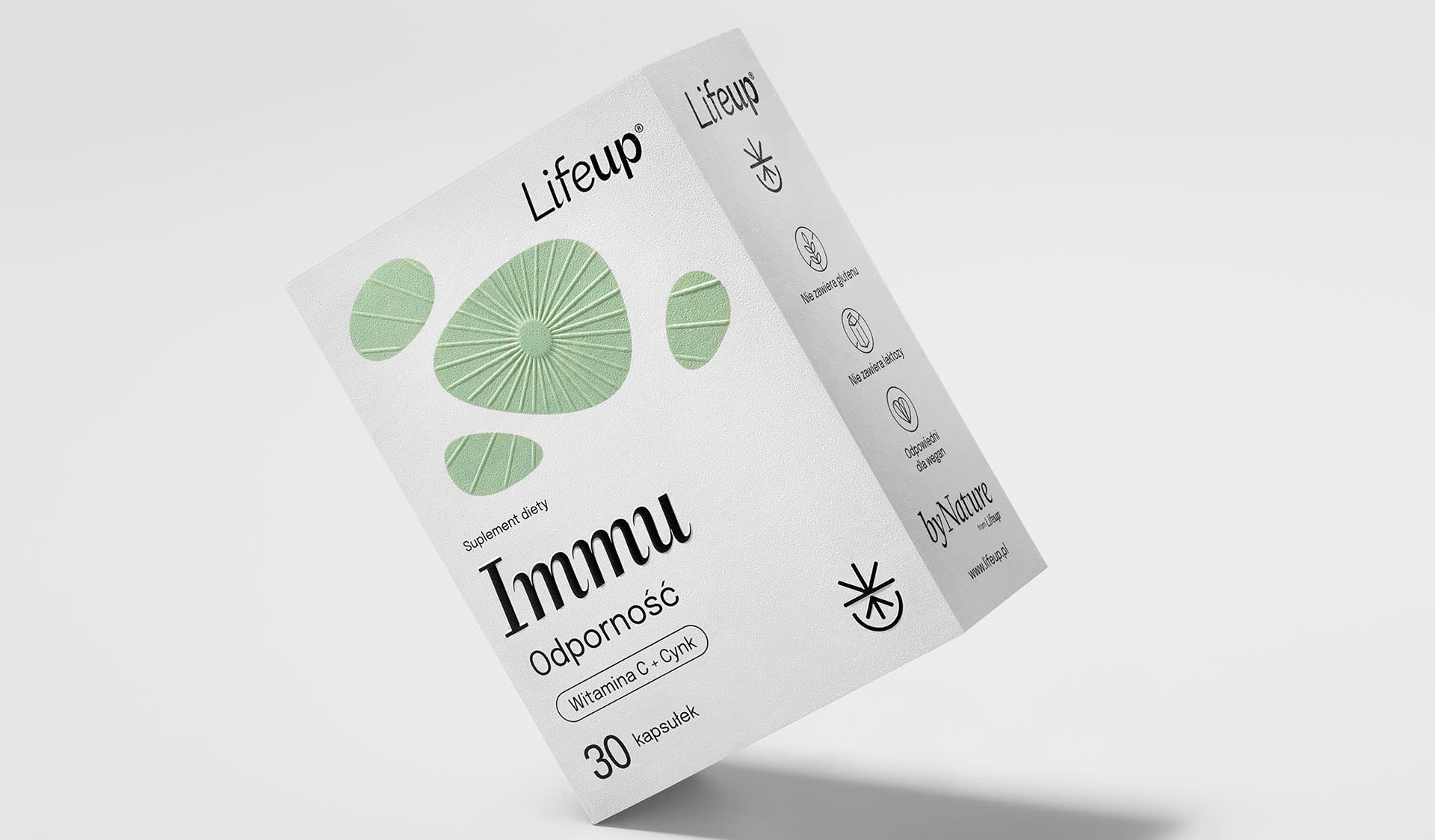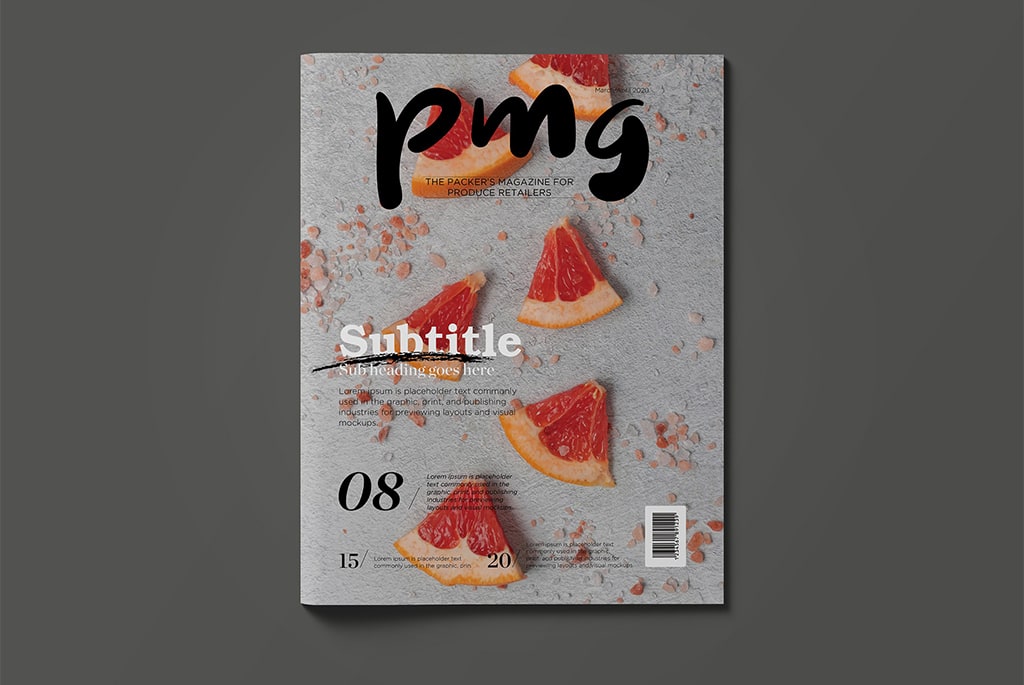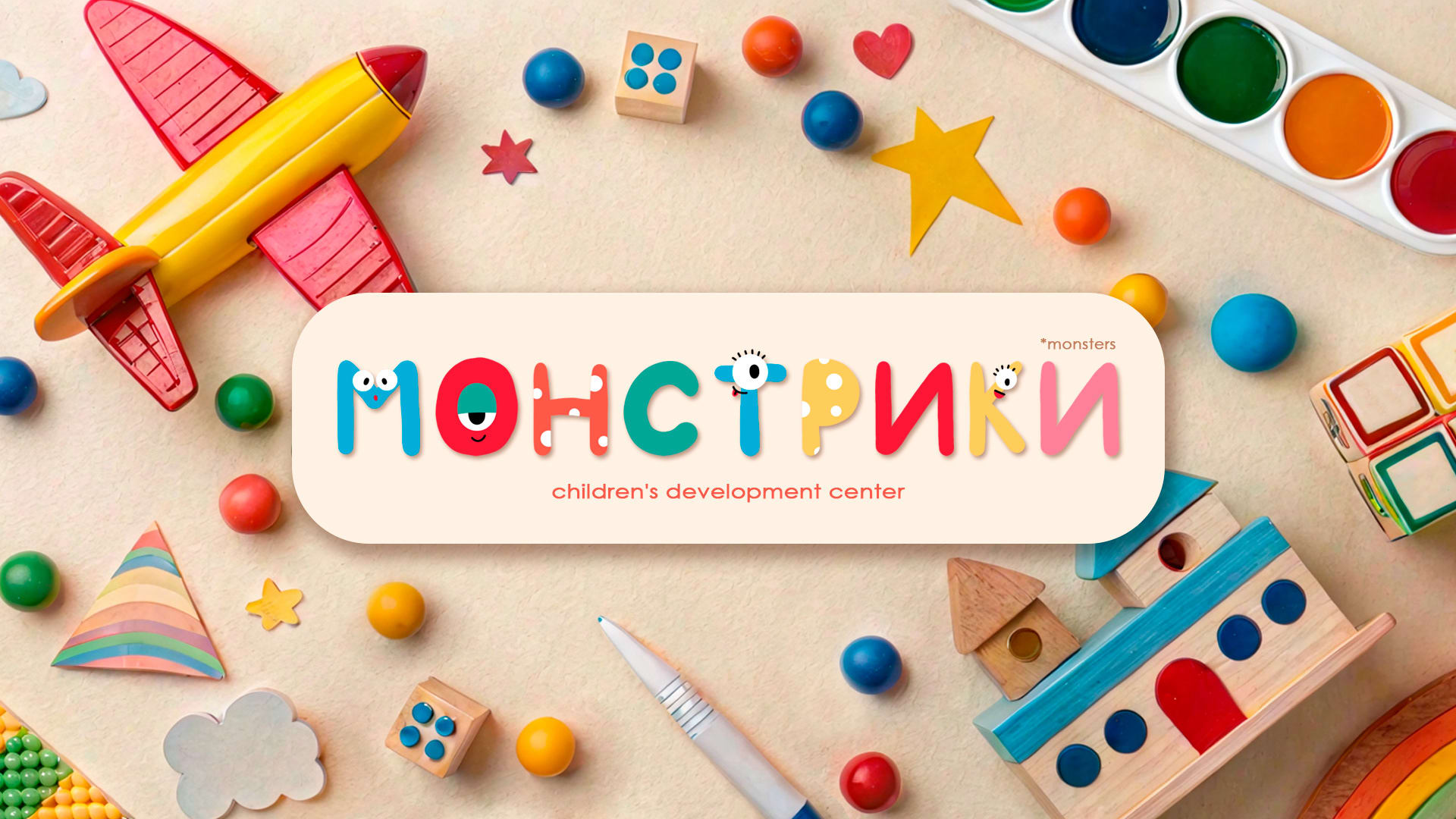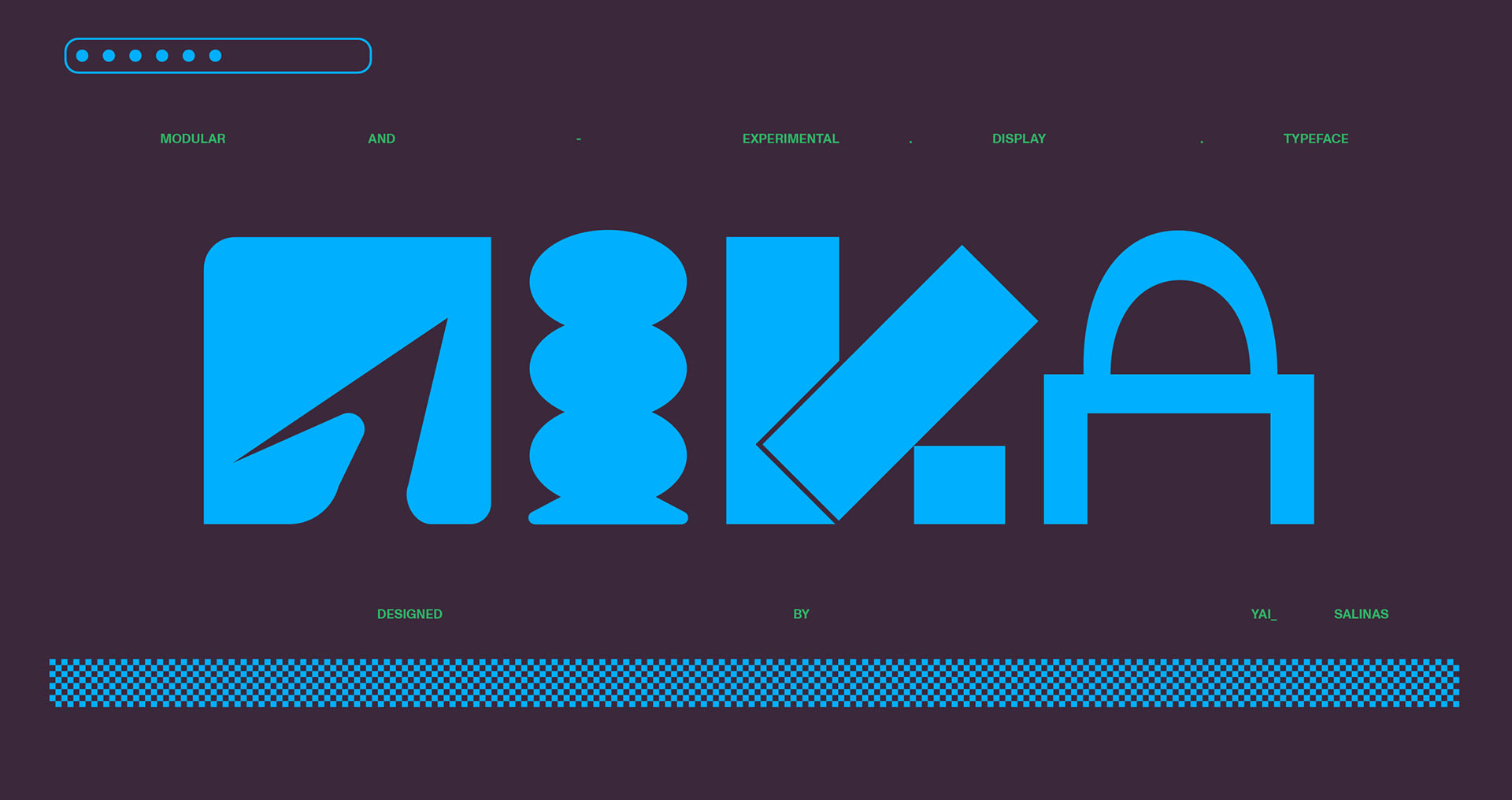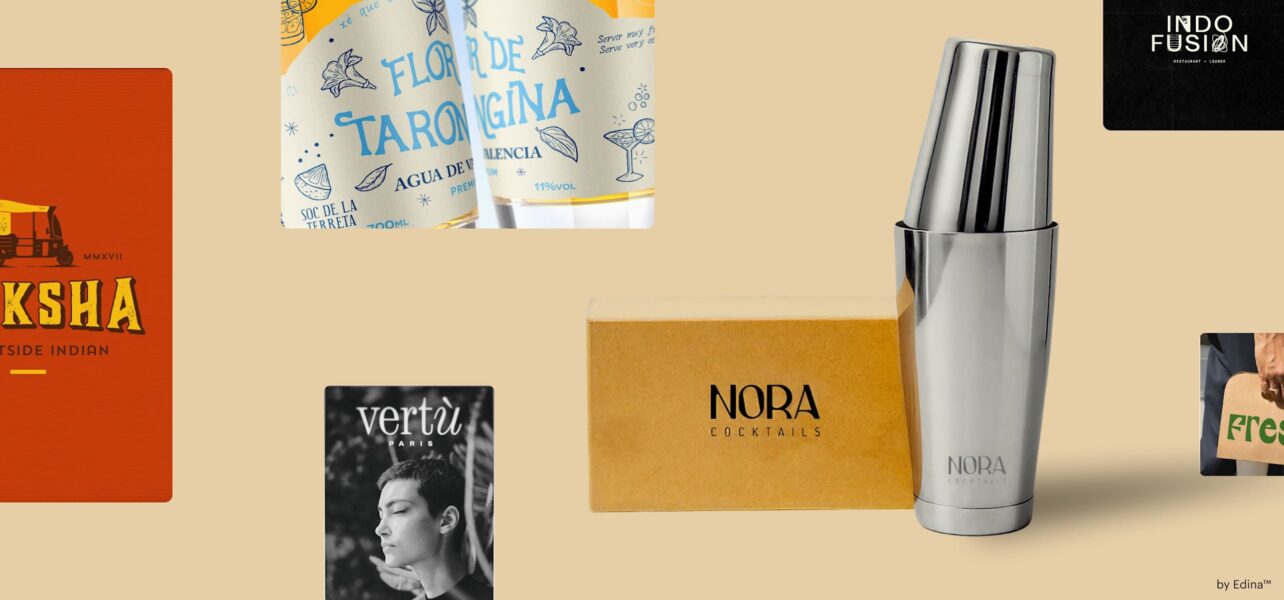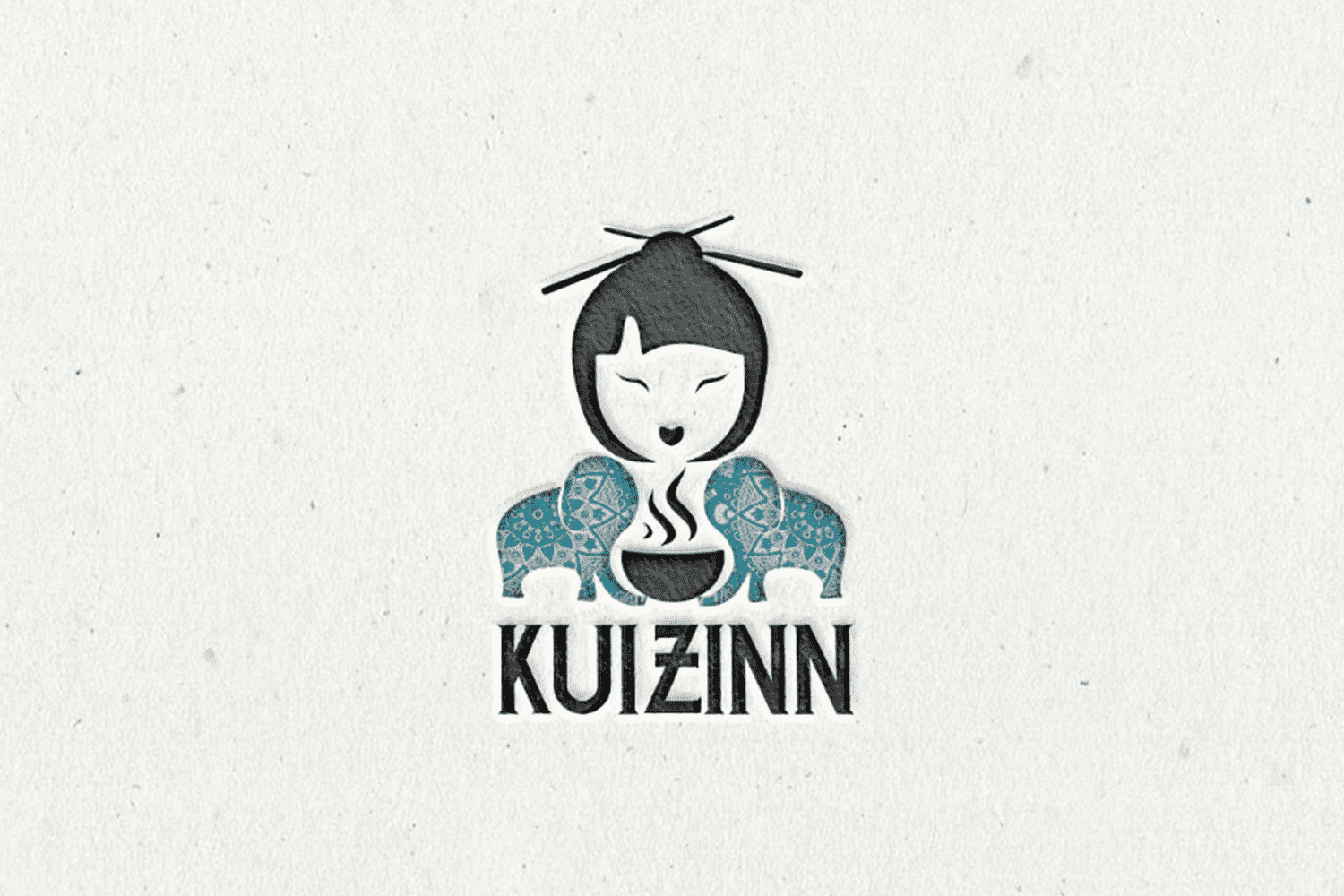
If you’re a small business owner, your time is precious, but you need customers to notice you. Consider this guide a time-saving shortcut. After speaking with our global community of freelance designers at 99designs by Vista, as well as our in-house design experts, our Trends 2026 research points to one big theme: People are craving personality they can trust. Font trends of 2026 tap into that feeling with typography that’s clearer, warmer and more human, without losing the simplicity busy brands need. Below, you’ll find eight trending font directions, each with easy steps to try on your logo, website, packaging or signage today.
1. Smooth It Over
Say goodbye to sharp edges. Smooth It Over softens existing letterforms by easing corners, smoothing terminals (the ends of strokes) and rounding angles, to make familiar fonts feel friendlier and easier to read. Think of it as turning the volume down on corporate and up on welcoming vibes, while keeping your current brand structure intact. The result reads modern, warm and a little playful, which works well for neighborhood cafés, kids’ brands, pet care, fitness studios and any service that relies on approachability and trust. It’s also an easy refresh: keep your current type (or a close cousin) and simply round edges or choose a softer cut, so it stays recognizably you with a warmer, more human feel.
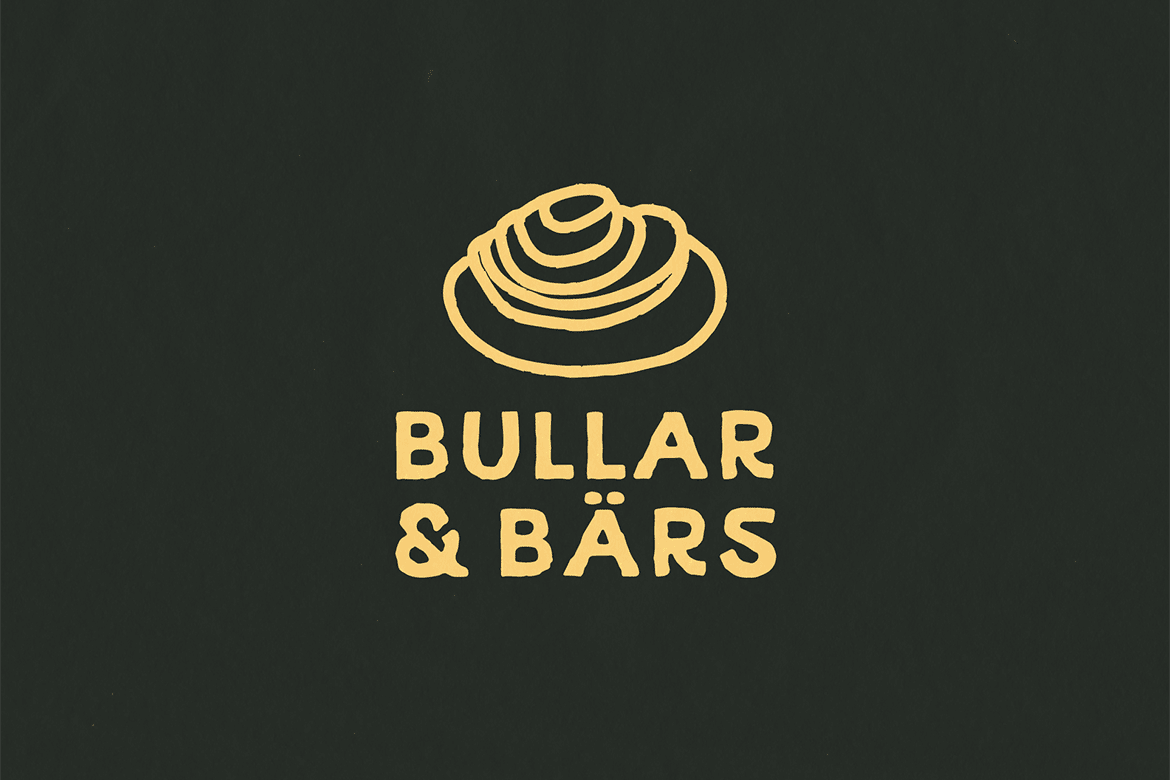
Source: font design by EWMDesigns via 99designs by Vista
“The softness of the characters makes this type trend feel unintimidating and inclsuive. The organic forms and rounded shapes would be perfectly suited to brands that want to be precieved to be as playful and inviting.”— Mary Pho, Art Director, VistaPrint
How to achieve: Keep your primary font if you like it, then swap in a rounded cut (for example, a rounded version of your sans serif) for headlines, menus or window decals. If your font doesn’t have a rounded sibling, gently round corners in a wordmark update or choose a rounded sans like Nunito or Rubik for display lines while keeping a clear body font like Inter. Maintain strong contrast and round headlines with crisp body copy to stay readable and professional.
2. Lingua-Lettering
Lingua-Lettering blends multiple writing systems, like Latin with Arabic, Japanese, Cyrillic, Devanagari and more in the same identity system. Sometimes scripts sit side by side; other times, designers echo shapes across scripts to create a shared rhythm. For global e-commerce, cultural institutions and food brands with international roots or tourism, this signals inclusivity and real-world reach.
“Bring language and culture into your design with Lingua-lettering. Why limit yourself to just one language when you can tell a richer story by weaving in others? Every language carries its own unique shapes, rhythms, and movements. Visual elements that can elevate your message and make it unforgettable. Design knows no borders, so neither should your creativity.”— Justin Hamra, Creative Director, VistaPrint
How to achieve: If you serve multilingual audiences, add a secondary script version of your wordmark or headline style for key touchpoints (storefront, packaging, website banners). Choose type families with broad language support so spacing and tone match across scripts. Work with a native speaker or cultural consultant to get the nuance right, and use clear hierarchy: one primary headline language, the second script as a supporting line or tagline. It’s bold and inclusive.
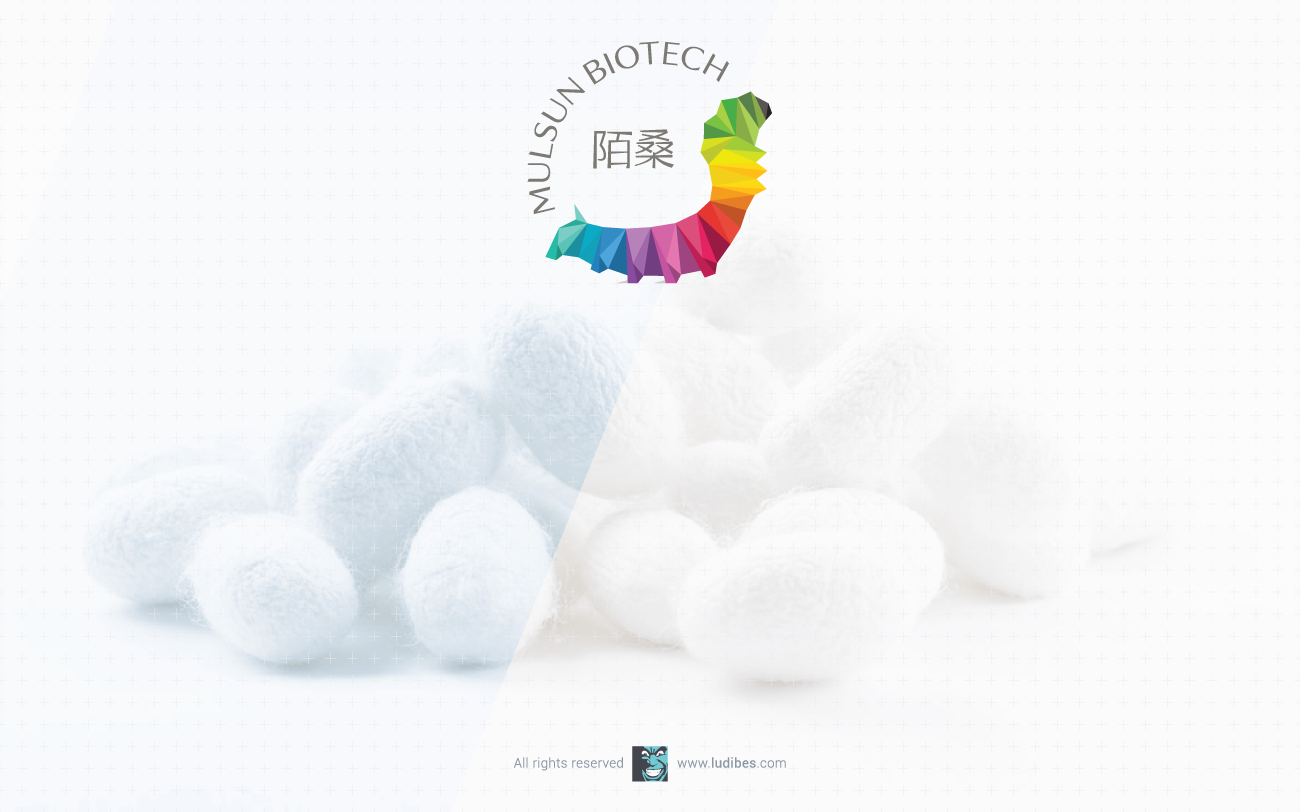
Source: Font design by ludibes via 99designs by Vista
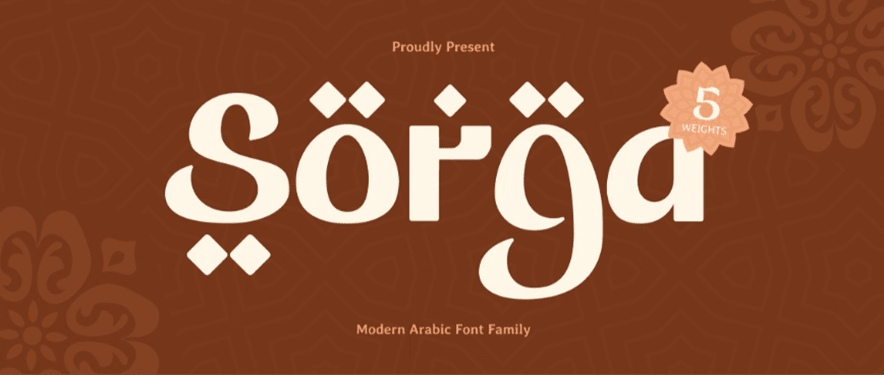
Source: font design by Sensatype via Dribbble
3. Halftone Blur
This look leans into oversized dots as stars of the show: chunky periods, circular counters (the holes inside letters like a and o) and dotted patterns that echo early pixel grids and halftone textures. It’s structured and playful, giving text a graphic rhythm that turns headlines into patterns you can spot from across the street. Great for bakeries, indie publishers, event posters and youth-oriented shops because the bold dot textures feel tactile, pop at a distance, print cleanly with simple processes and tap a retro-digital playfulness younger audiences love.
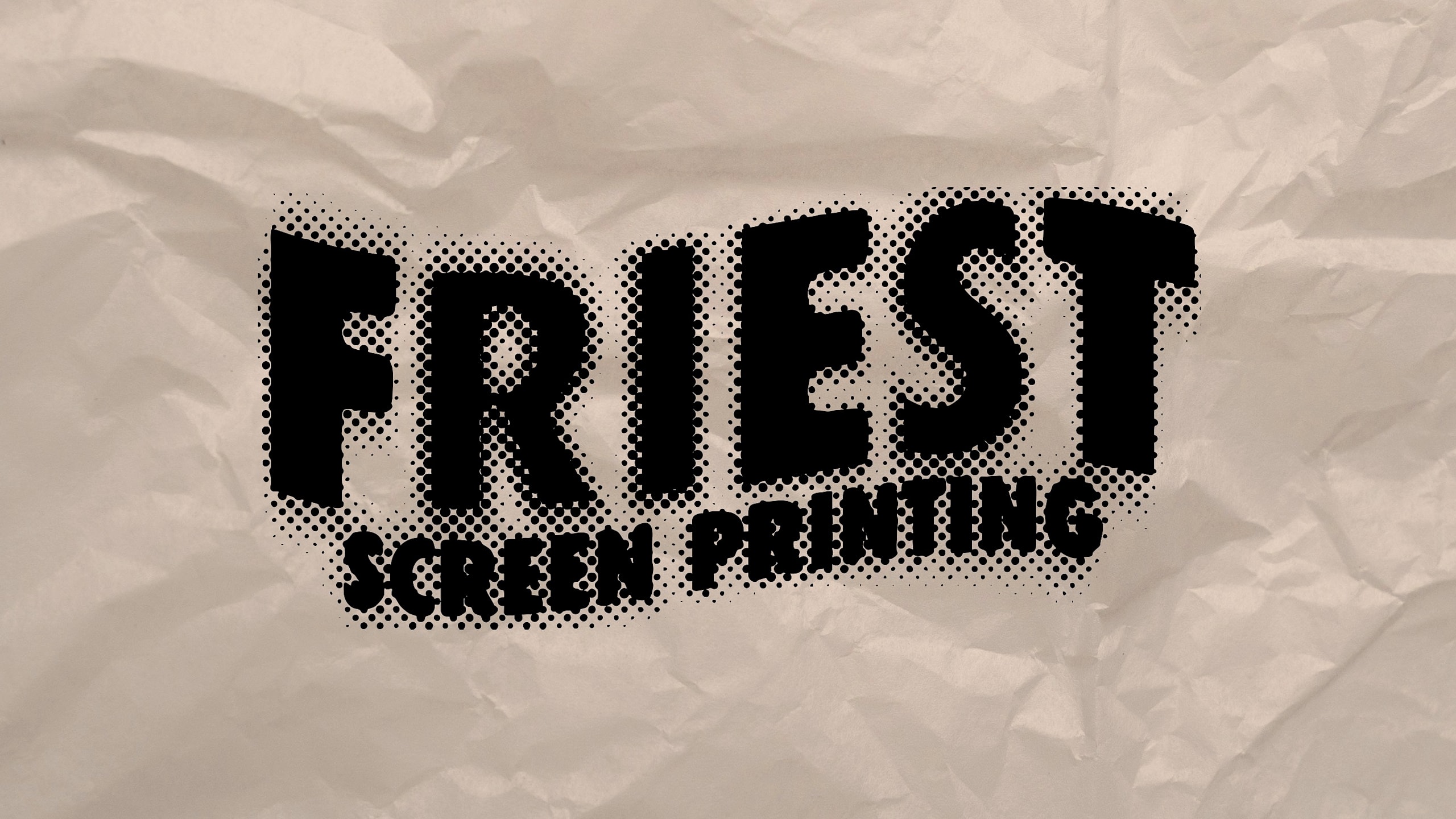
Source: via Vistaprint
“Take everything you know about pixel-perfect typography and smudge it. With halftone blurs and imperfect edges, this trend embraces the chaos of the printer. It’s raw, messy, and unapologetic. By leaning into imperfection, fonts take on a gritty retro energy that feels both nostalgic and rebellious, adding a tactile touch to any design.”— Justin Hamra, Creative Director, VistaPrint
How to achieve: Start with your regular headline font and amplify the dots. Make the period a design element, use circular bullets in menus or build a simple dotted texture behind key words. Pair with solid, high-contrast colours and keep body text simple. If you want a font that leans into the circle type vibe, try rounded geometric sans fonts and scale up punctuation for a modular, logo-ready look.
“I think people should use more painting principles, that should be the way, aka everything new is the well-forgotten old.”— oreganoclay, Designer on 99designs by Vista
4. Cross-Cultural Type
Rooted in heritage, refreshed for today. This trend borrows shapes from traditional scripts, regional motifs and craft techniques like brush strokes from calligraphy, woven or carved textures or letterforms that nod to historical posters, then pairs them with modern spacing, colour and grid systems.
Which fonts are best for branding in 2026?
Choose a flexible pair: a readable workhorse family (multiple weights, great numerals) for everyday text plus a distinctive display style for headlines. Popular fonts like Inter, Poppins or Source Sans work well for copy. Pair them with a dramatic serif, a rounded sans or a culturally inspired display cut that matches your brand story.